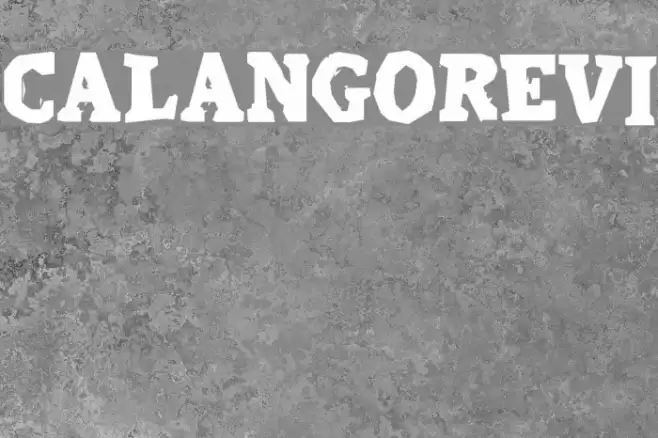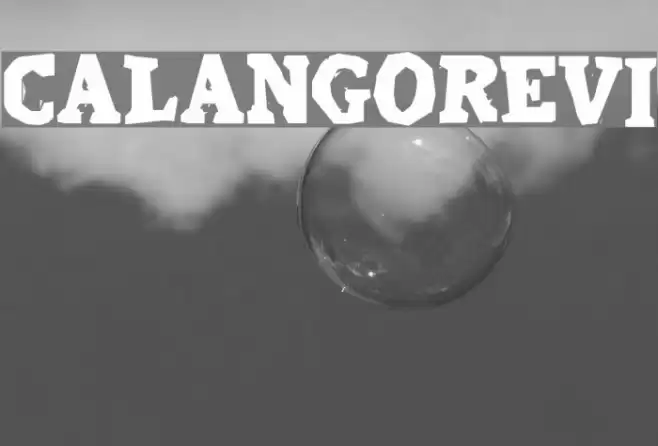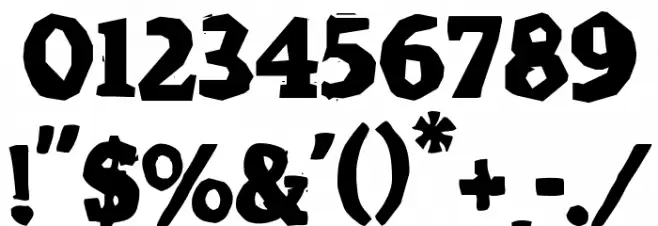
CalangoRevi Font
CalangoRevi Description
This font features a bold and dynamic style with a strong presence. The characters are heavily weighted, with thick strokes and a slightly irregular, hand-crafted appearance. The edges are sharp, giving it a rugged and robust feel. The uppercase and lowercase letters maintain a consistent height, while the numerals are equally bold and prominent. Special characters are designed to match the overall aesthetic, ensuring a cohesive look across all text. This font is ideal for making a statement, with its eye-catching and impactful design.
A bold, rugged font with thick strokes and a hand-crafted appearance from Uncategorized fonts.
- Proposed Projects: Ideal for posters, headlines, branding, and any project requiring a strong, impactful typeface.